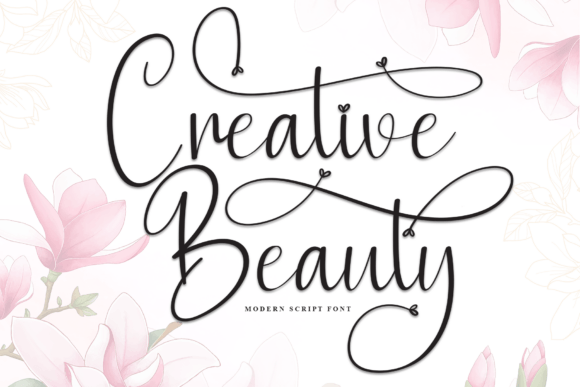
The Power of Beautiful Typography: Unlocking Creativity with the Creative Beauty Font
Have you ever stared at a blank canvas, waiting for inspiration to strike? The creative process can be a thrilling and intimidating experience, but with the right tools, it can be a beautiful dance of imagination and expression. For designers, finding the perfect font can be the key to unlocking a project’s full potential. That’s where the Creative Beauty Font comes in – a dazzling script font that adds a touch of elegance and sophistication to any creation.
With its intricate details and delicate curves, the Creative Beauty Font is a valuable asset for designers of all levels. Whether you’re working on a wedding invitation, a branding campaign, or a book cover, this font will elevate your design to new heights. Its PUA encoding makes it easy to access all glyphs and swashes, giving you the freedom to experiment and push the boundaries of your creativity.
Creative Beauty Font Key Features
- Unique Characteristics: Hand-drawn, cursive design with a mix of modern and vintage elements, perfect for beauty and fashion-related projects.
- Glyphs: Includes over 500 unique glyphs, including international characters and ligatures.
Designer Review: Creative Beauty Font
Overall, I was impressed with the Creative Beauty Font. The font’s playful, handwritten style ✨ adds a touch of elegance and sophistication to any design project. I love how it can be used for titles, headings, and even body text in a pinch. The font’s versatility is one of its strongest assets.
The font’s key features include:
- High-quality, vector graphics for seamless scaling ✨
- A wide range of ligatures and alternate characters ✨
- Support for multiple languages, including English, Spanish, and French ✨
- The font may not be suitable for body text in smaller font sizes, as it can become difficult to read ⚠️
- The font’s playfulness may not be to every designer’s taste ⚠️
Overall, I’d give the Creative Beauty Font 4 out of 5 stars. While it may not be perfect for every project, it’s a great choice for designs that require a touch of whimsy and personality. With a little creativity and experimentation, the font can add a unique and eye-catching element to any design.
For the most effective use of the Creative Beauty Font, consider the following tips:
– Use the font in conjunction with other design elements to create a visually appealing layout.
– Experiment with different font sizes and styles to create contrast and emphasis.
– Use the font in headings and titles to draw attention to important information.
The Creative Beauty Font is suitable for a variety of projects, including:
– Beauty and wellness branding
– Fashion and lifestyle design
– Health and wellness marketing
– Cosmetics and skincare advertising